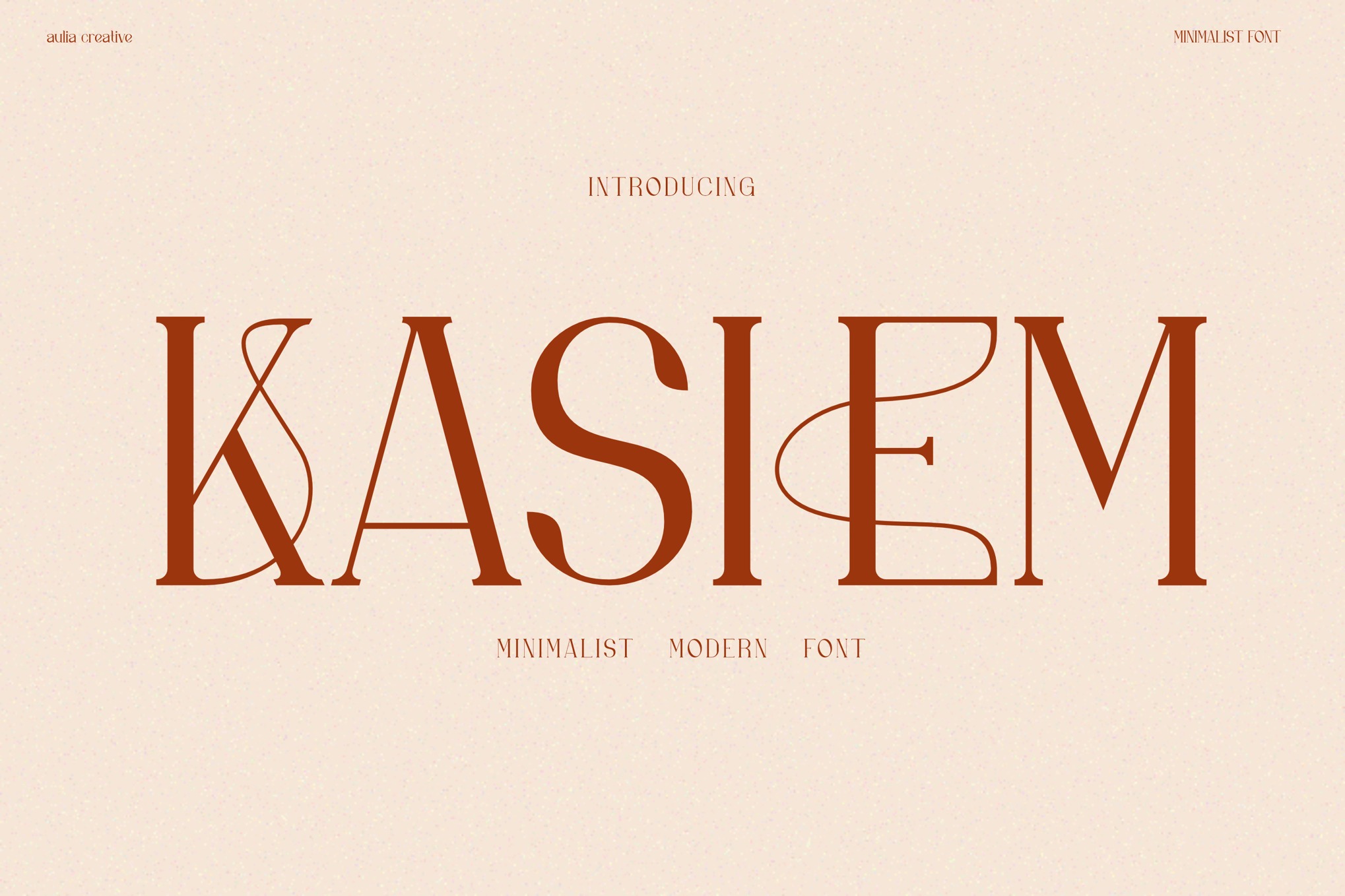
Kasiem Font
Kasiem Font – Luxury Serif Display Font for Premium Branding. Kasiem is a luxury serif display font designed for premium branding, logo design, and high-end visual communication. This authentic serif font combines classic typography with a modern luxury style, making it an ideal choice for designers who need a professional display font that delivers elegance, confidence, and strong visual impact.
Luxury Serif Font with Authentic Character
As a luxury serif font, Kasiem features refined letterforms, sharp serifs, and balanced contrast that create a timeless and sophisticated appearance. The font is carefully crafted to express authenticity and exclusivity, helping brands establish a strong and memorable identity. Kasiem works perfectly as a serif display font for headlines, titles, and large typography where visual presence matters.
Perfect Display Font for Branding and Logo Design
Kasiem is an excellent serif font for branding and logo design. Its elegant structure and premium feel make it suitable for fashion brands, beauty products, jewelry, real estate, hospitality, and lifestyle businesses. Designers can use Kasiem to create logos, brand identities, and marketing materials that look professional, luxurious, and visually consistent.
Versatile Serif Display Font for Print and Digital Use
This serif display font performs exceptionally well in both print and digital design. Kasiem can be used for editorial layouts, magazine covers, packaging design, website headers, social media graphics, and advertising campaigns. The font maintains readability while delivering a bold and luxurious typographic style.
Why Choose Kasiem – Luxury Serif Font
Luxury serif display font with authentic and elegant design
Ideal for branding, logo design, and premium projects
Suitable for fashion, editorial, packaging, and marketing design
Works well for both print and digital platforms
Timeless typography with modern luxury aesthetics